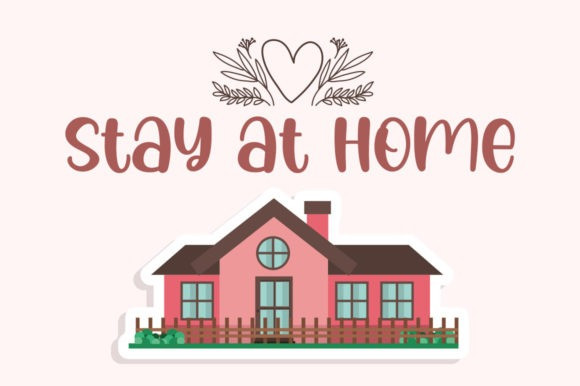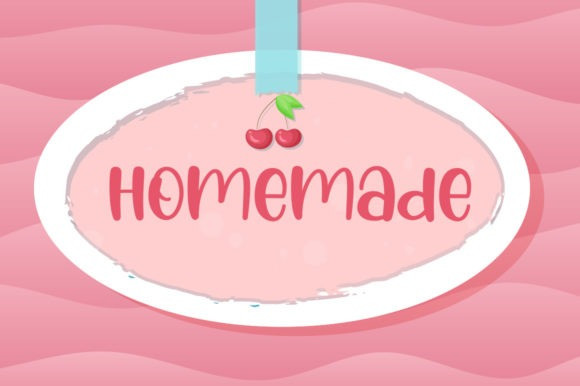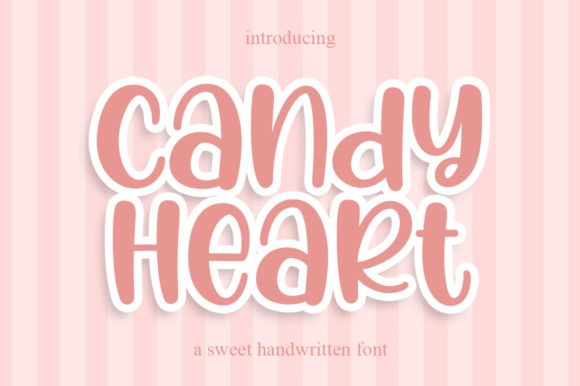
Candy Heart Font
Candy Heart Font is a delicate and simple-lettered display font, perfect for all the chalkboard quotes and teaching materials you wish to create! Its authentic look will add a personal and realistic feel to your designs.